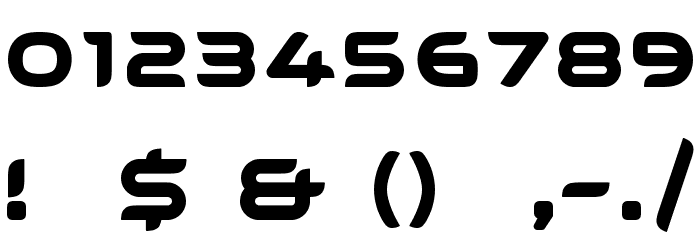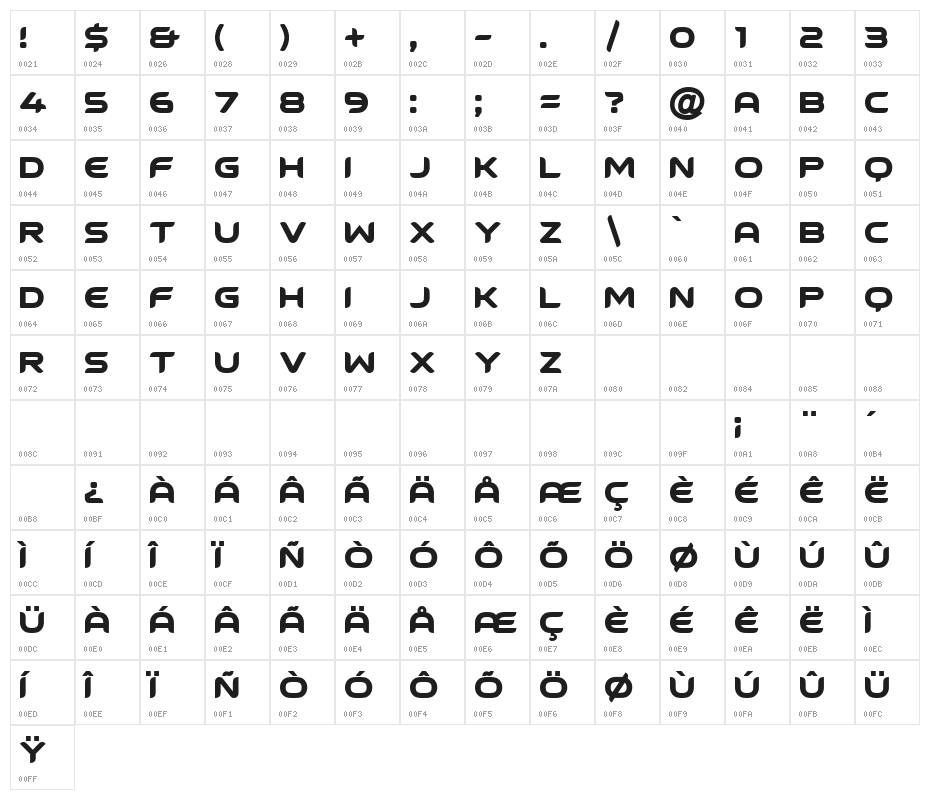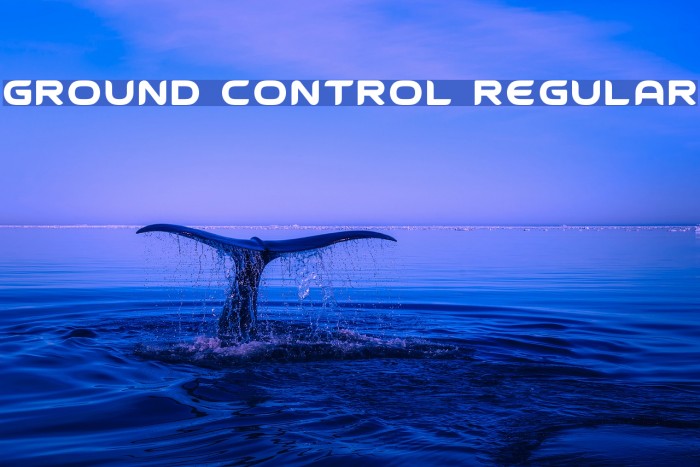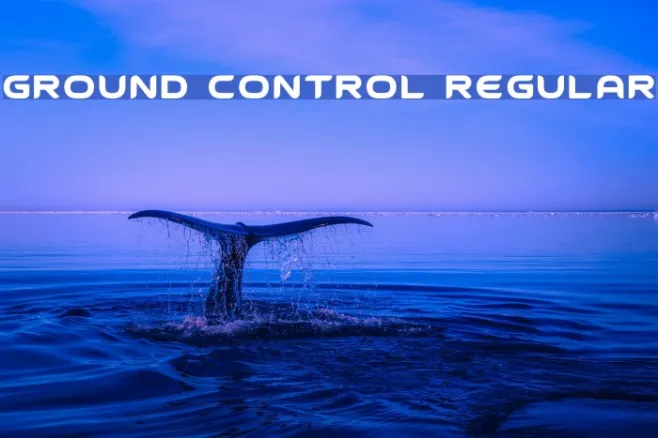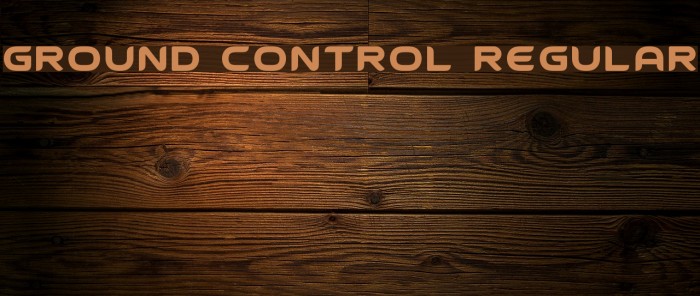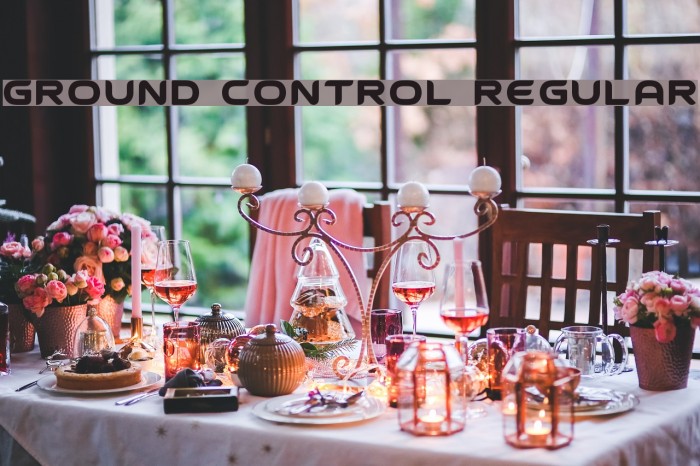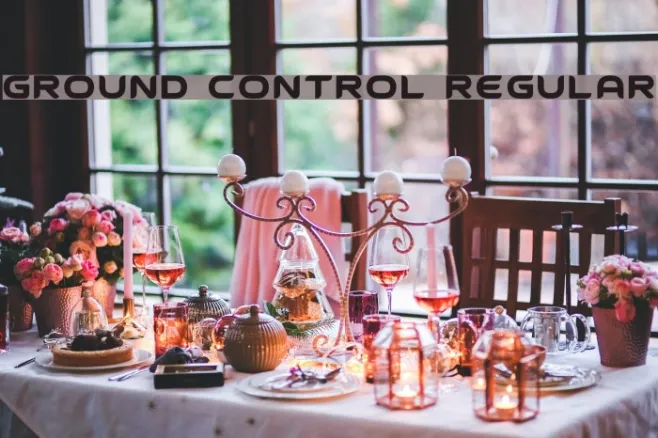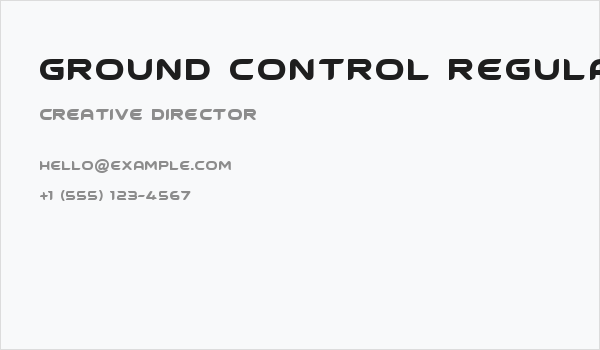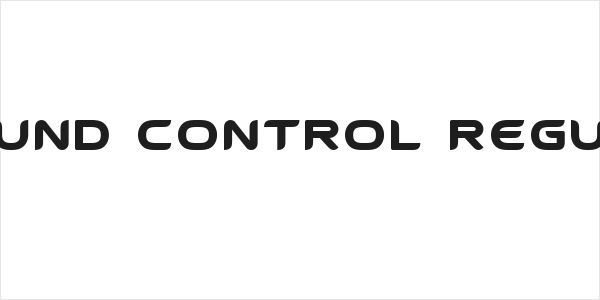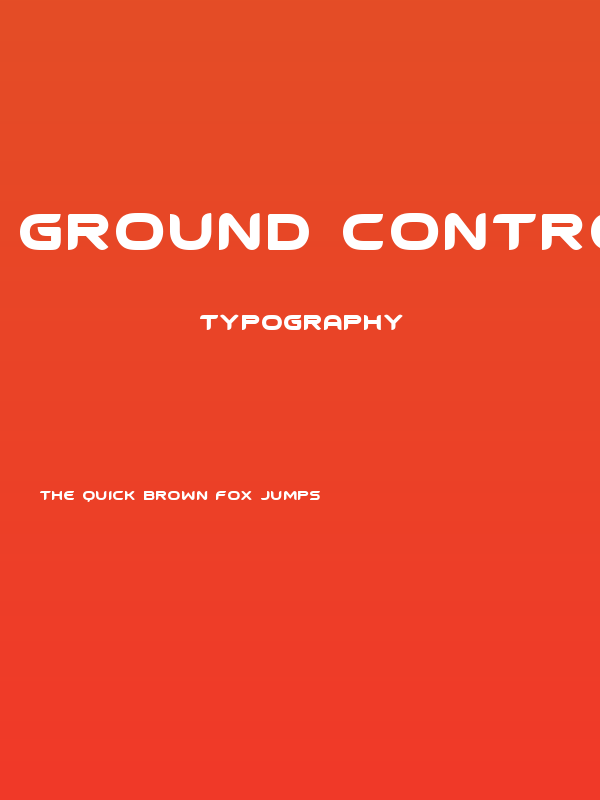
Ground Control Regular Font
Ground Control Regular Description
This font features a futuristic and sleek design with rounded edges and a geometric structure. The characters are bold and have a consistent weight throughout, giving a uniform appearance. The uppercase and lowercase letters maintain a similar height, creating a compact and cohesive look. The numerals and special characters follow the same design principles, ensuring a harmonious visual flow. The font's modern aesthetic makes it suitable for technology-related projects, branding, and digital interfaces. Its readability and distinct style make it stand out in various applications.
| Proposed Projects | Ideal for technology branding, digital interfaces, and modern advertising. |